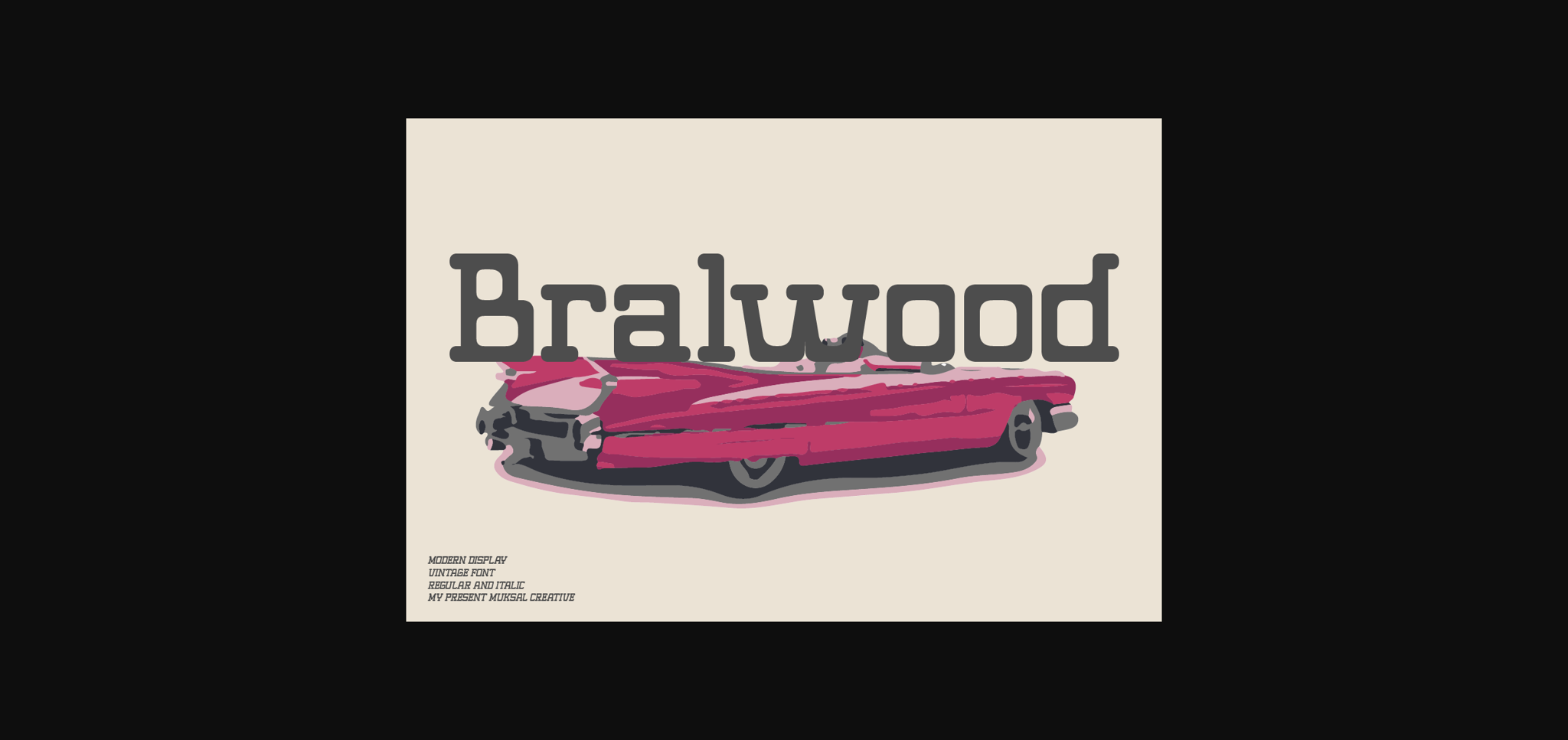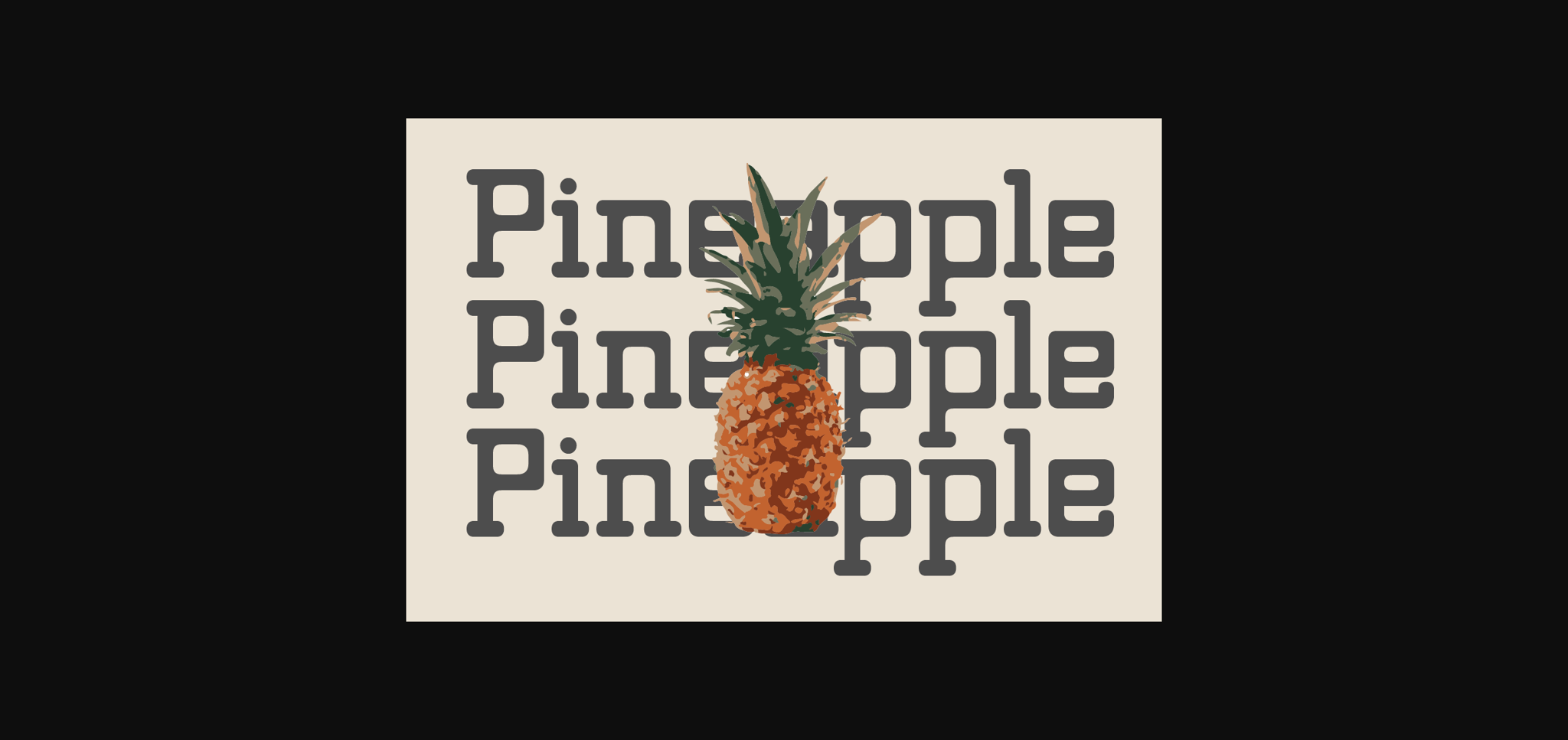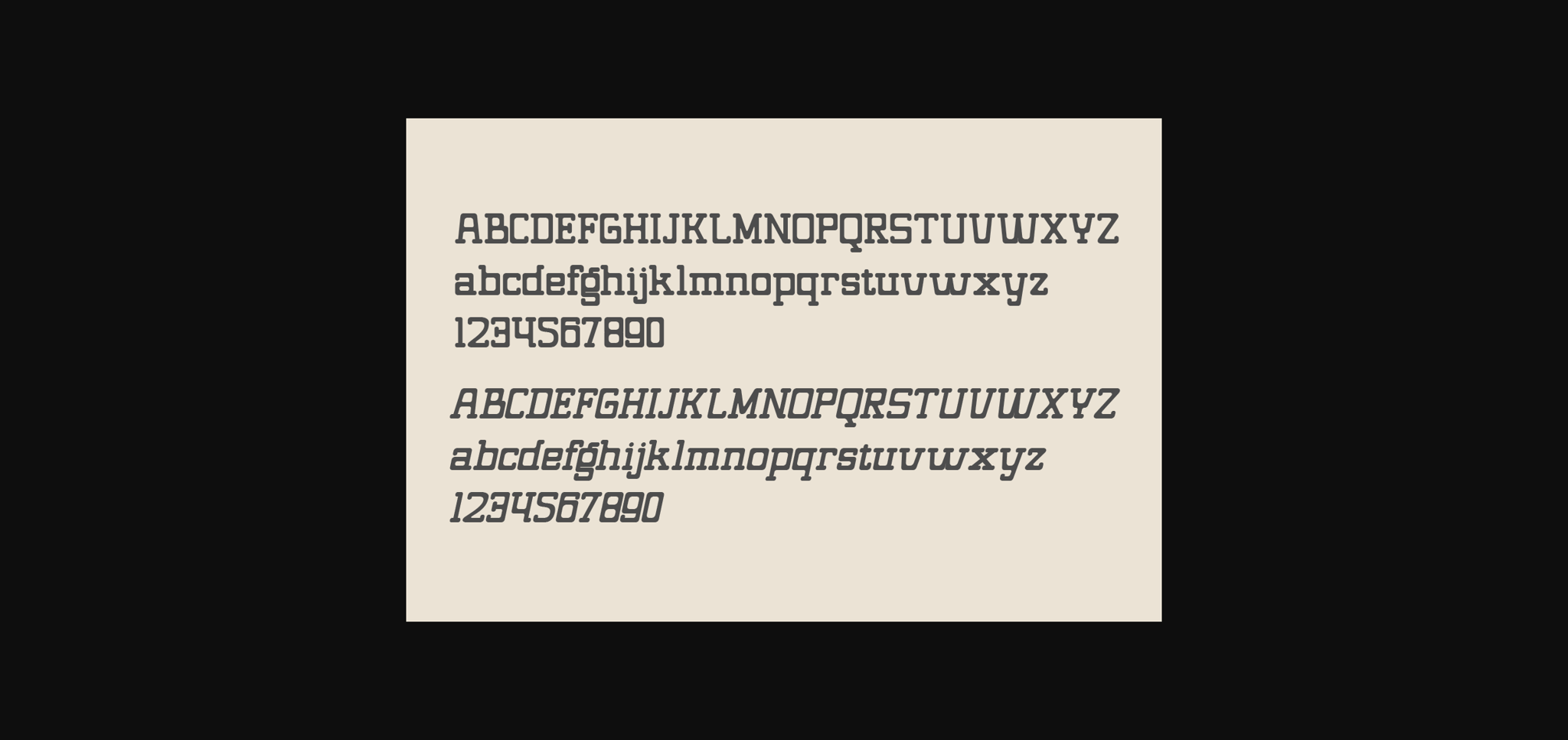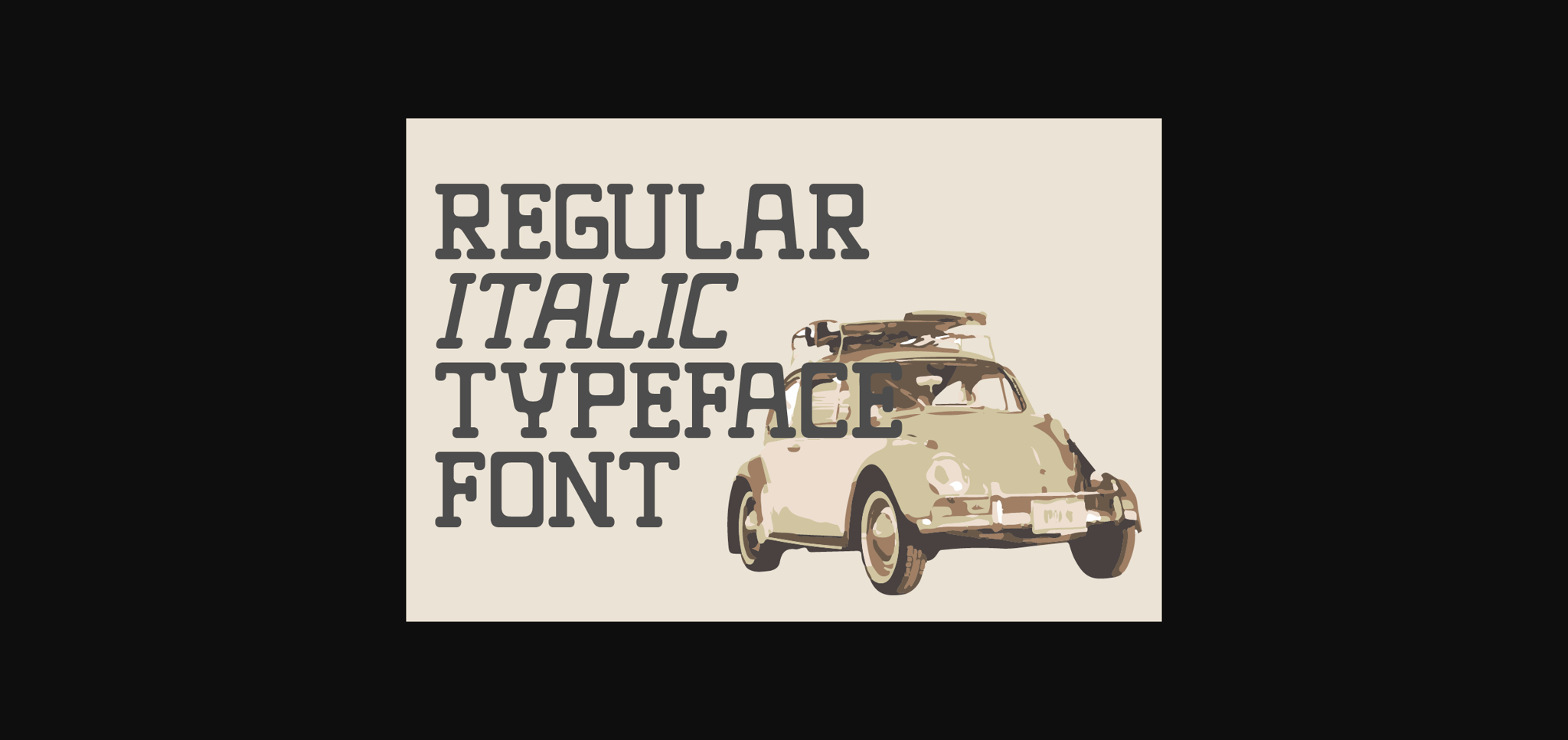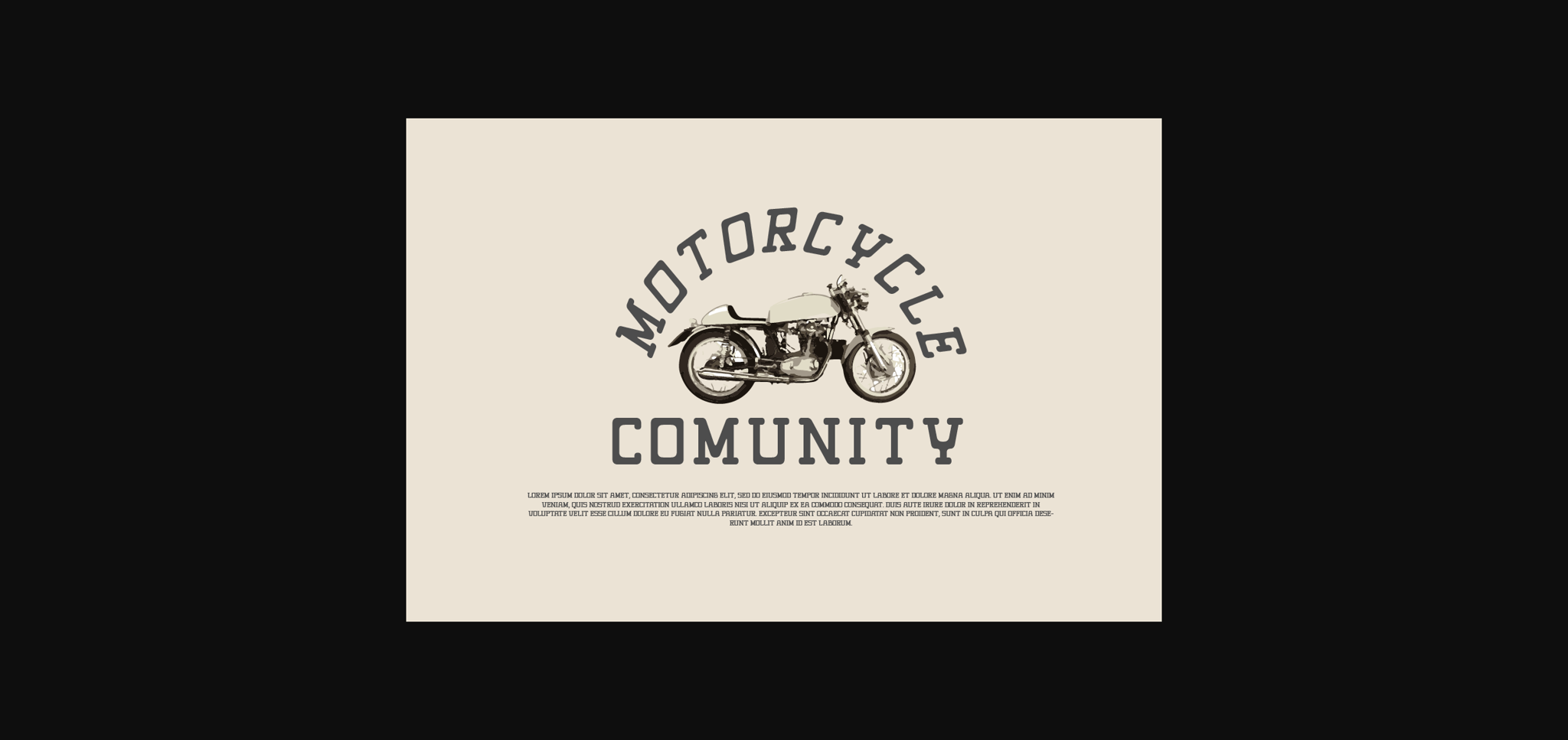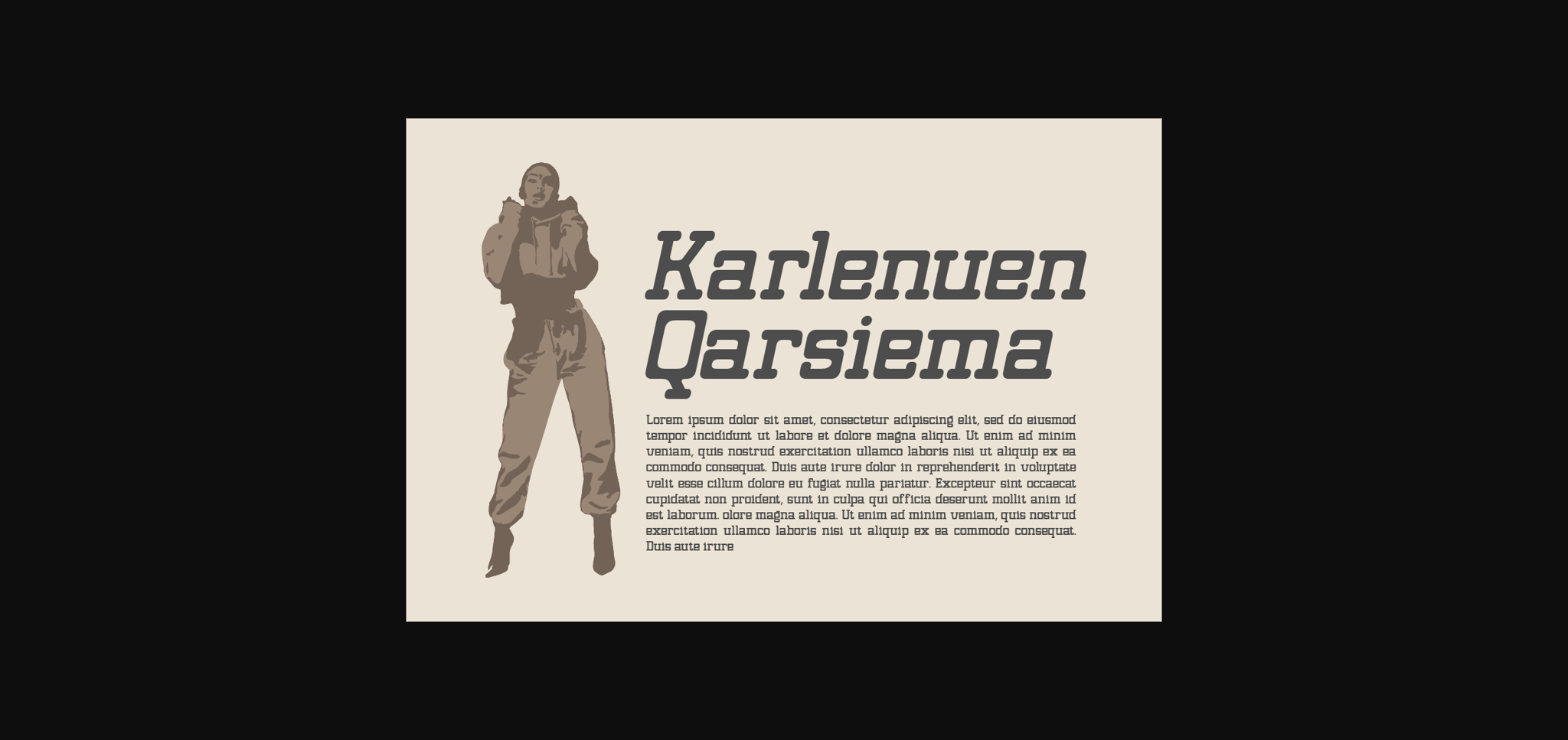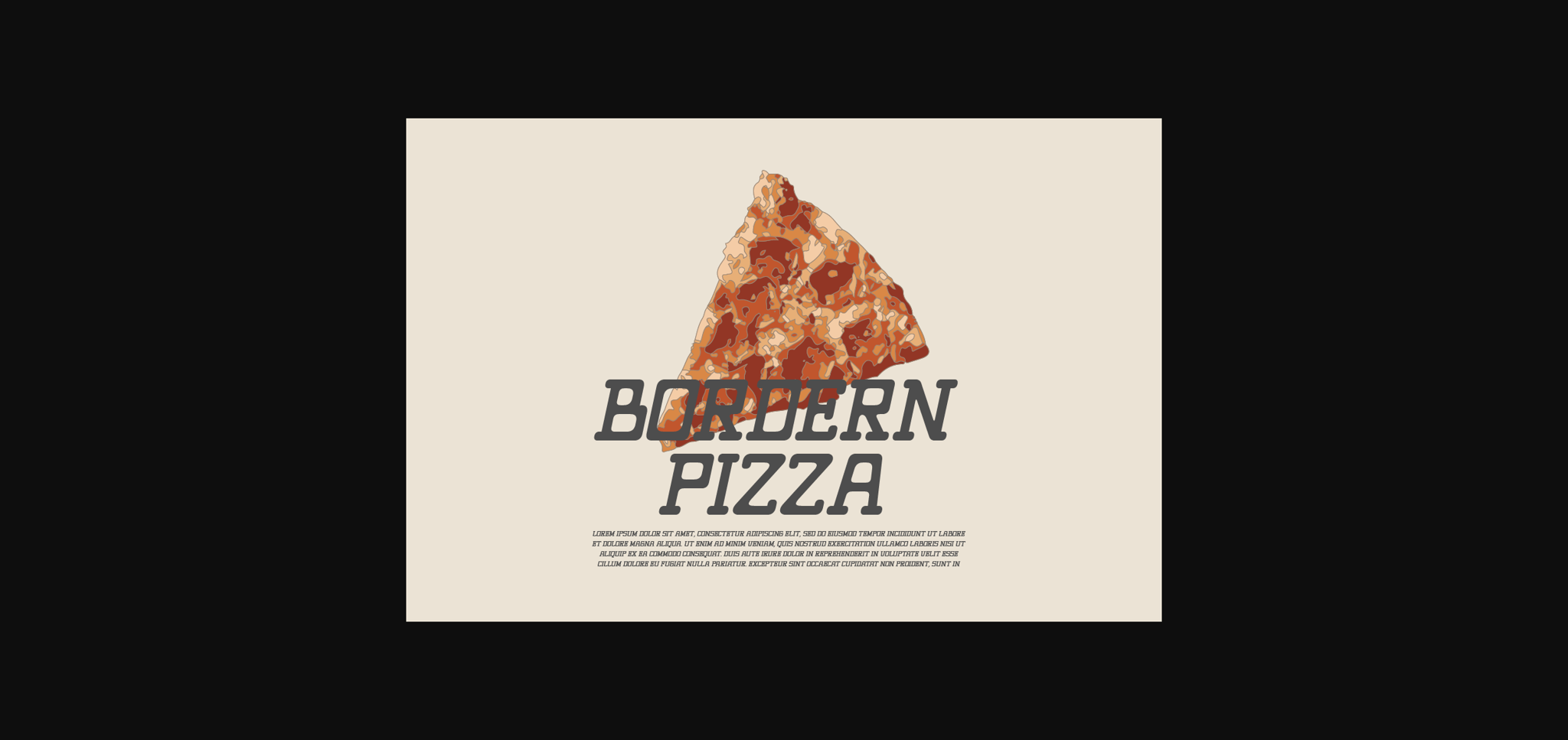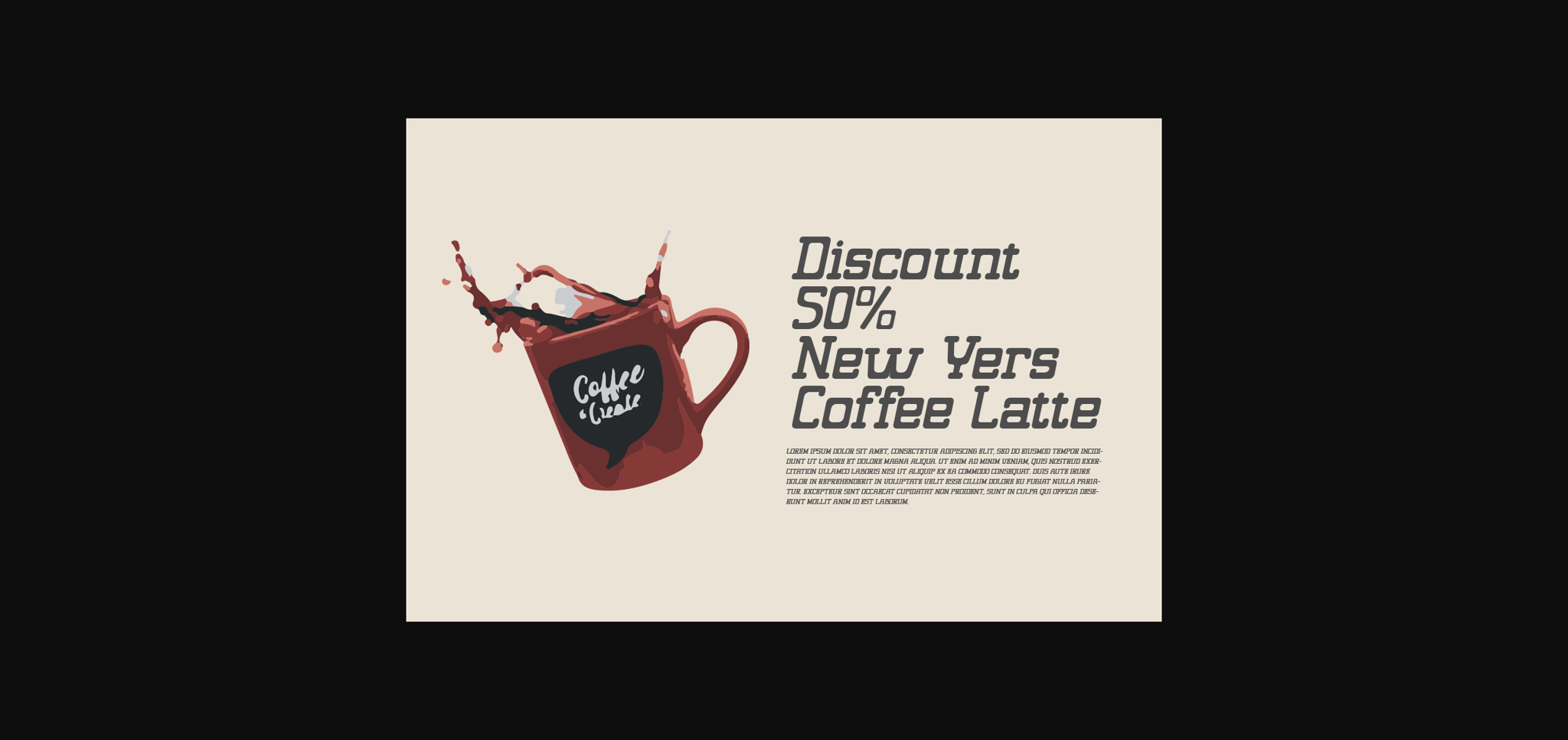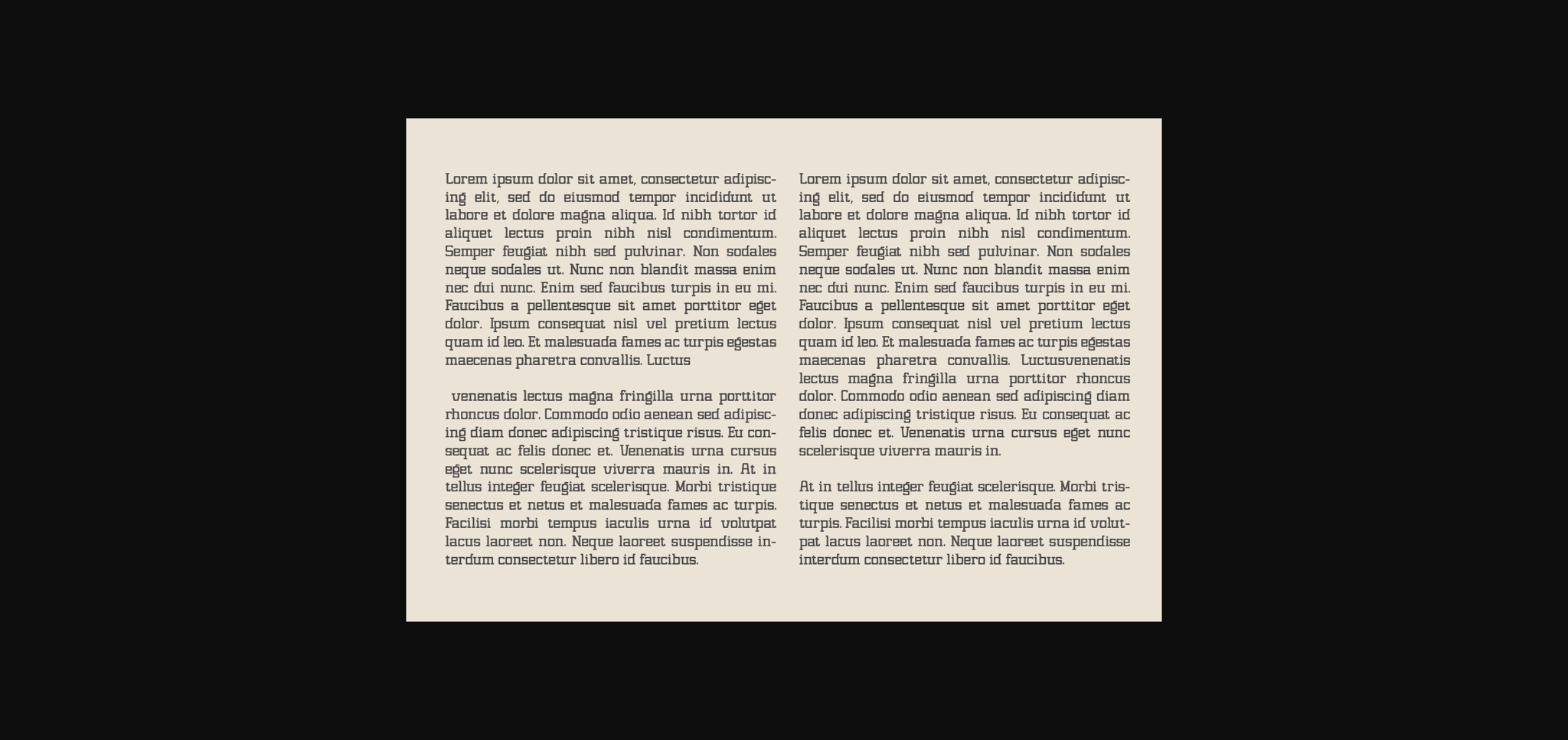
Bralwood Font
About Bralwood Font
Bralwood is a font that seamlessly blends modern sensibilities with classic vintage nuances. With a commanding display style, the font exudes elegance while retaining a nostalgic touch. Its letters boast bold and creative shapes, adorned with details that evoke the alluring essence of retro eras.
What sets Bralwood apart is its delicate yet robust lines and sharp angles, lending visual strength to each character. Ideal for logo branding seeking to emphasize retro or vintage vibes, Bralwood imparts an exclusive and sophisticated feel to various design ventures. From posters to product labels and packaging, Bralwood adds a distinctive touch that captivates attention.
With its ability to create enticing and captivating impressions, Bralwood stands as the perfect choice for designers aiming to convey powerful messages with a classic yet modern flair.